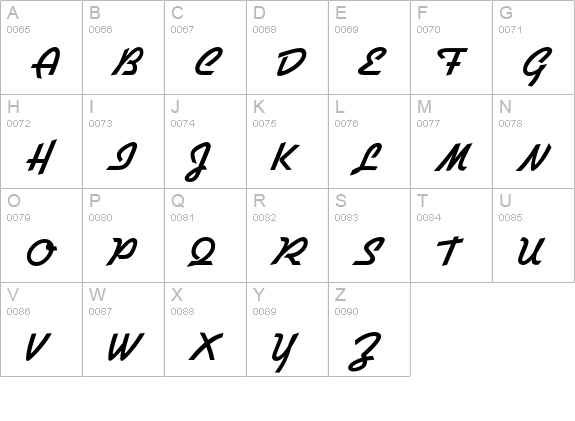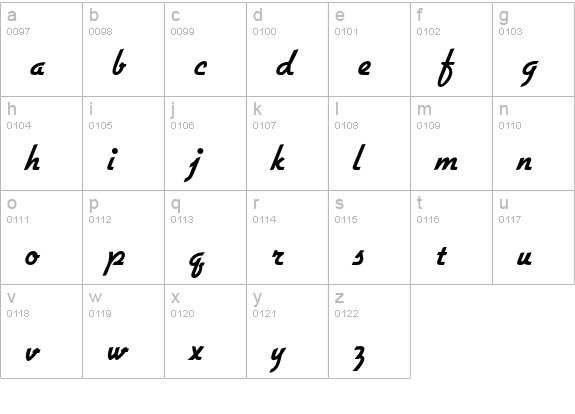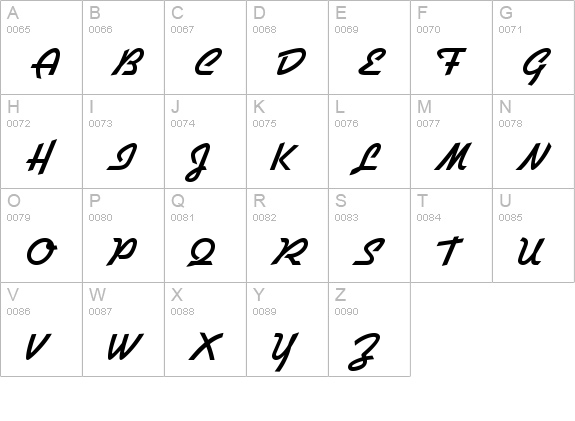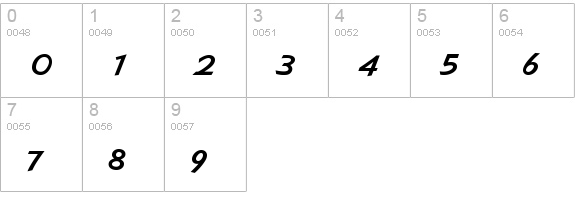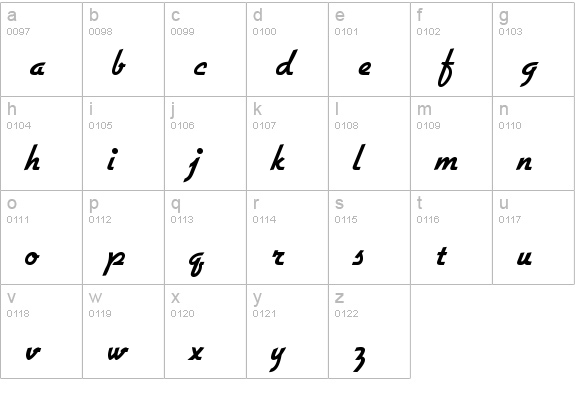
GilliesGothicEF-Bold Font Details
GilliesGothicEF-Bold is a strong, high-contrast variant in the GilliesGothicEF typeface family \xE2\x80\x94 well suited to headlines, attention-grabbing titles, and strong calls-to-action.